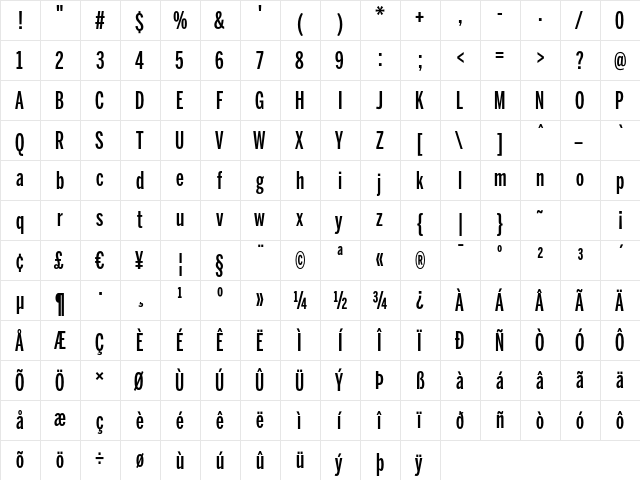
BentonSans ExtraComp Medium Regular Font Preview
BentonSans ExtraComp Medium Regular
BentonSans ExtraComp Medium Regular Font Details
| Foundry | The Font Bureau, Inc |
| Designer | Cyrus Highsmith, Tobias Frere-Jones, and Font Bureau |
Design Context for BentonSans ExtraComp Medium Typeface
BentonSans ExtraComp Medium is a composed and adaptable typeface that performs quietly and consistently across a wide range of design contexts.
Pro Tip: Use BentonSans ExtraComp Medium in both headline and body roles to test its range before committing to a single application.